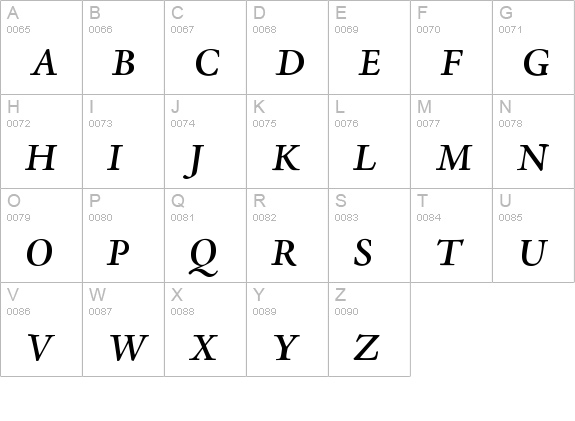
Adobe Jenson Pro Semibold Italic Font Details
Adobe Jenson Pro Semibold Italic is a sub-bold, structured, italic variant in the Adobe typeface family \xE2\x80\x94 well suited to sub-headlines and emphasised passages.
Adobe Jenson Pro Semibold Italic is a sophisticated and versatile font that exudes elegance and professionalism. With its bold yet graceful design, this font is perfect for creating eye-catching headings, subheadings, and other prominent text elements. The italicized style adds a touch of flair and emphasis to your projects, making your message stand out with style. This font is ideal for a wide range of design projects, from print materials such as brochures and flyers to digital content like websites and social media graphics. Its timeless appeal and legibility make it a popular choice for designers looking to elevate their work with a touch of sophistication. Best of all, Adobe Jenson Pro Semibold Italic is available for free download at FontsMarket.com. Whether you're a seasoned designer or just starting out, this font is a valuable addition to your typography toolkit. Download it today and add a touch of elegance to your next project!